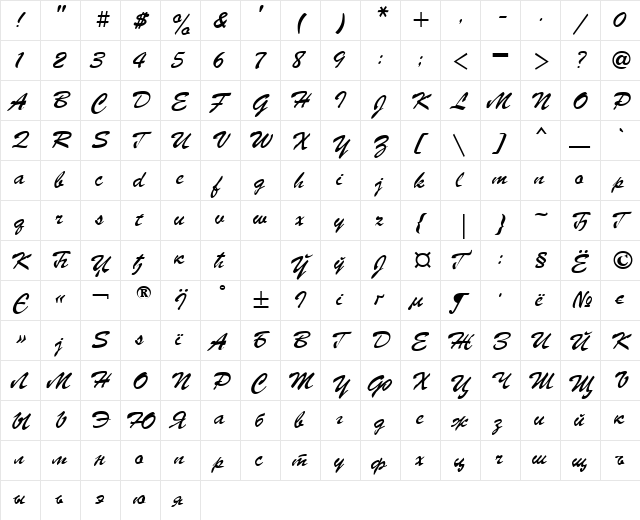
font373 Regular
Design Context for font373 Typeface
font373 is a composed and adaptable typeface that performs quietly and consistently across a wide range of design contexts.